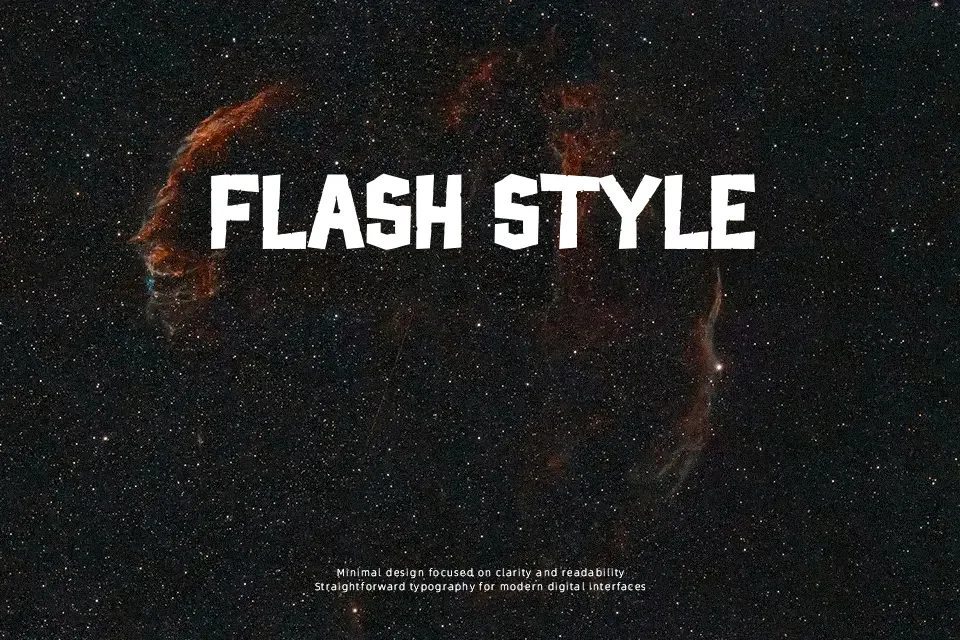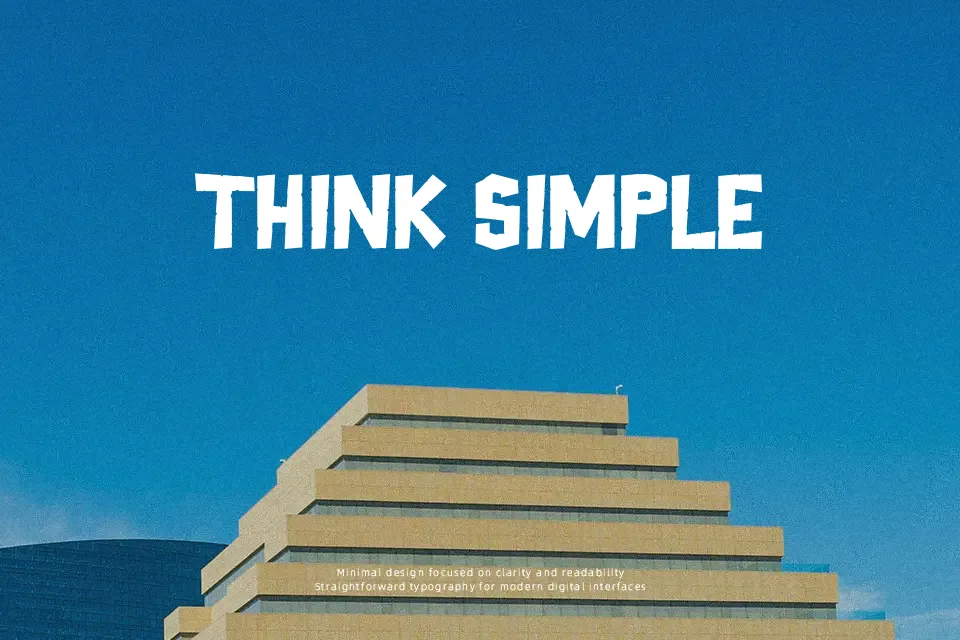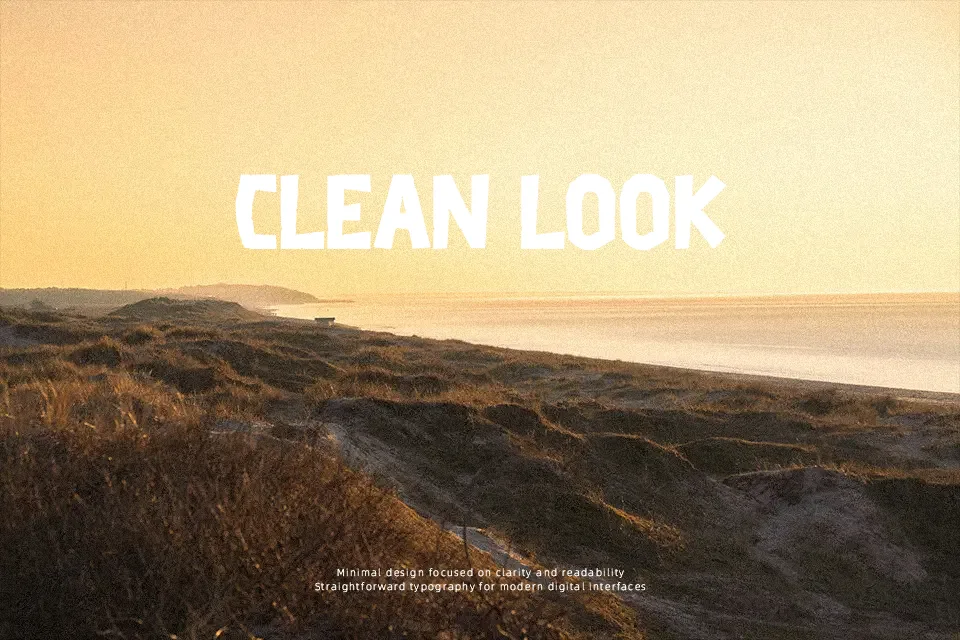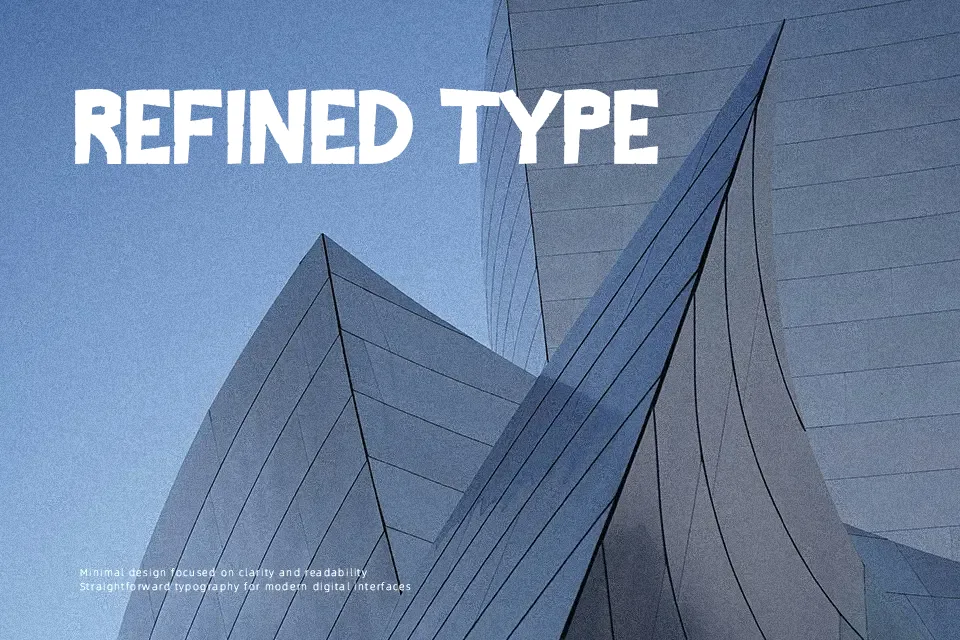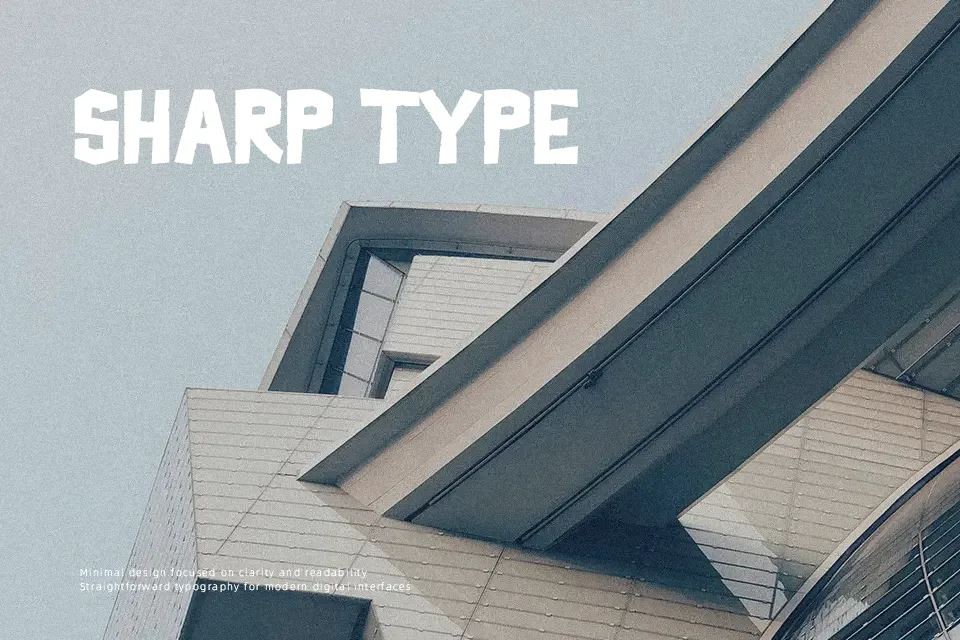
Thertole Font
Thertole Font establishes a commanding presence through thick, chisel-edged strokes and deliberately uneven letterforms reminiscent of ancient rock carvings. Each glyph exhibits stocky proportions with minimal internal counter space, creating a heavy typographic weight across the baseline. Relatively compact spacing keeps short word clusters tight and cohesive, which benefits merchandise labels, arcade game titles, and festival banners. At scale, the bold strokes improve legibility across outdoor signage. However, this dense construction significantly hampers readability when rendered at miniature sizes. Consequently, the typeface remains unsuited for running editorial paragraphs or multi-page documents, functioning most effectively as a thematic headline solution.
Best For: animated title graphics, children’s book cover headlines, arcade game packaging, outdoor adventure signage
Not Ideal For: continuous editorial body copy, mobile user interface labels, multi-column print publications, legal contract documentation